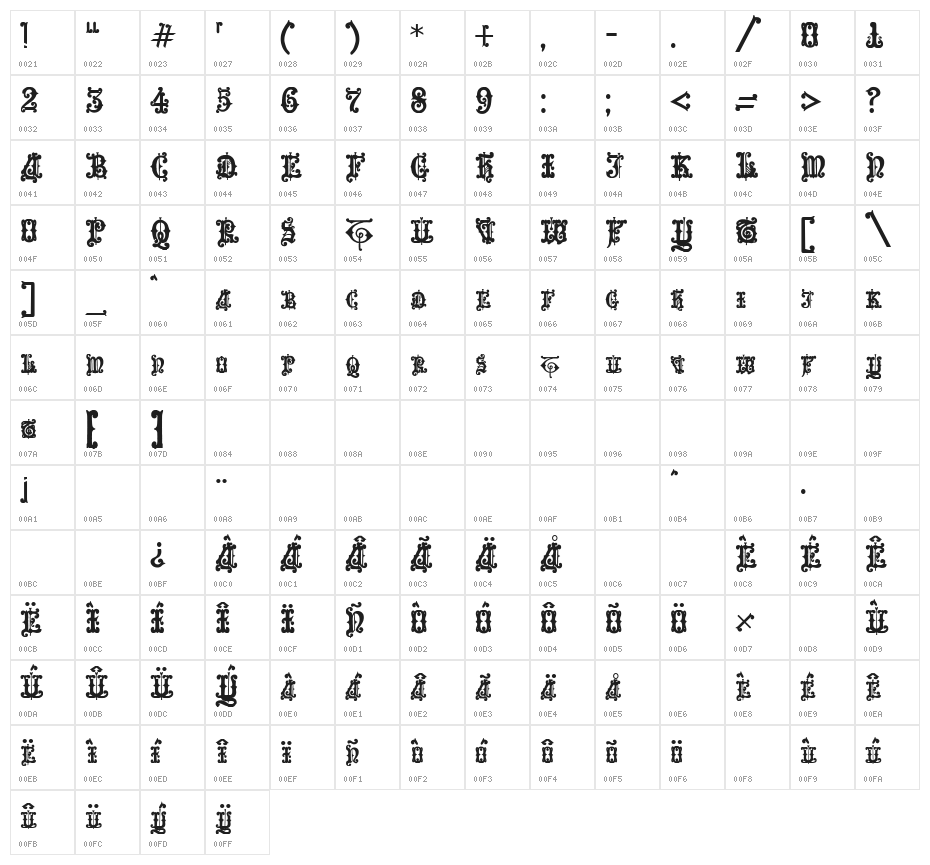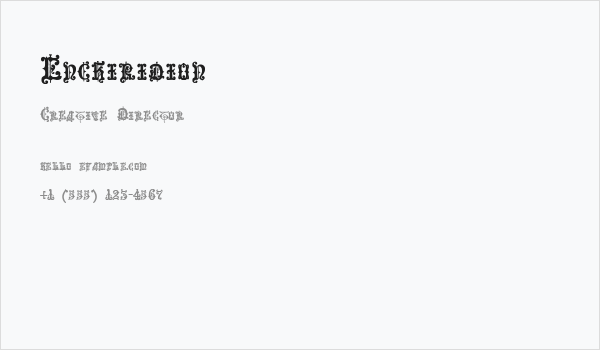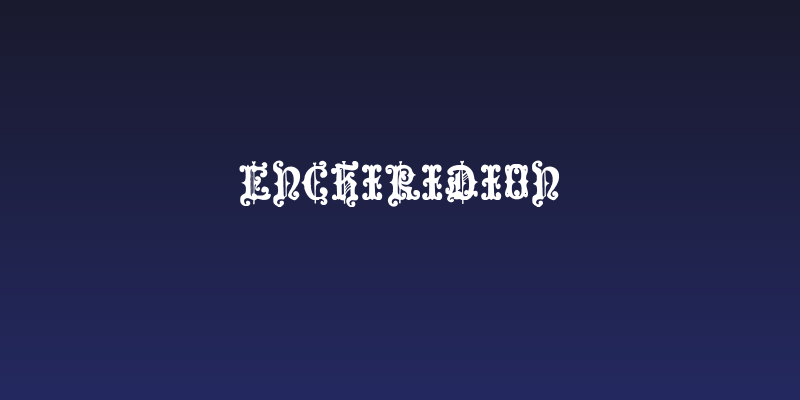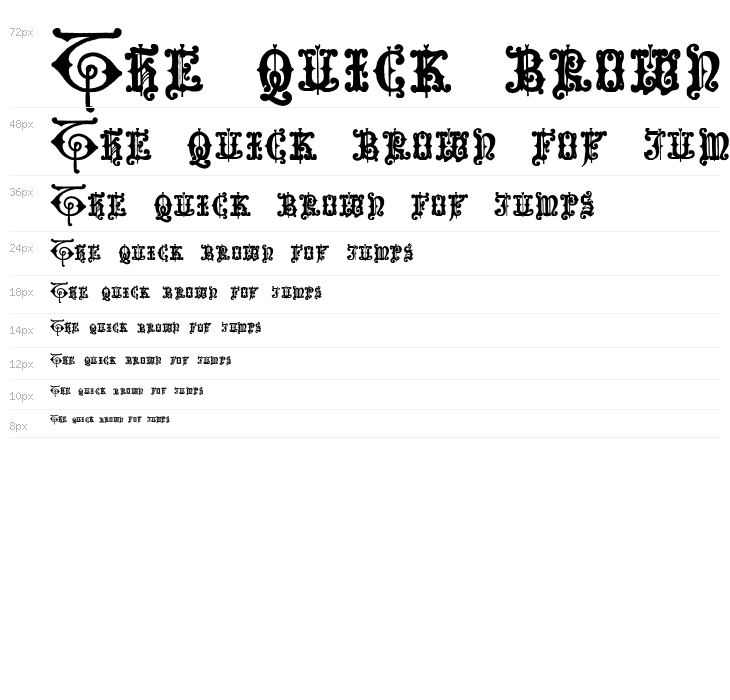
Enchiridion Font
Enchiridion Description
This font features an ornate and intricate design, reminiscent of traditional blackletter styles. Each character is adorned with elaborate flourishes and decorative elements, giving it a highly stylized and artistic appearance. The uppercase letters are particularly bold and commanding, while the lowercase letters maintain the same level of detail and complexity. The numbers and special characters are equally ornate, ensuring a cohesive look across all glyphs. This font is ideal for projects that require a historical or gothic aesthetic, such as themed event invitations, book covers, or branding for vintage-inspired products.
| Proposed Projects | Ideal for themed event invitations, book covers, or vintage-inspired branding. |